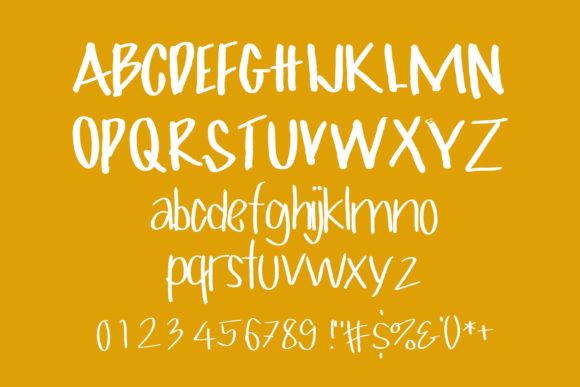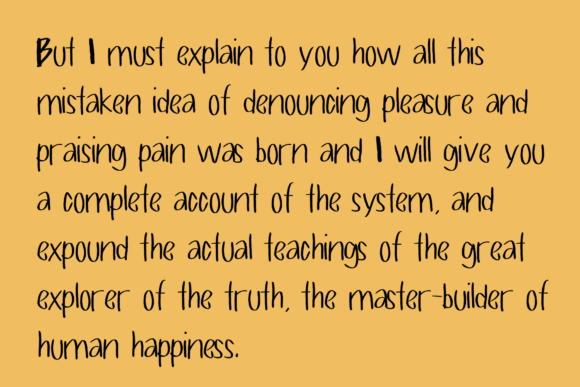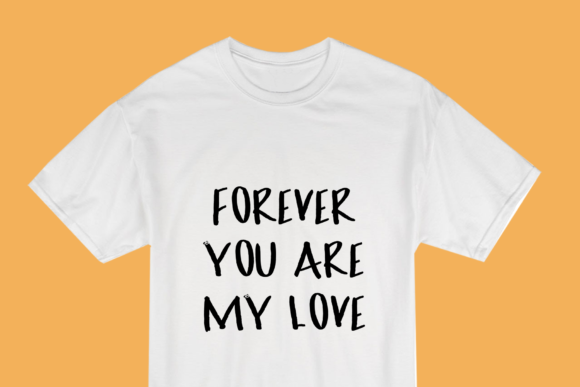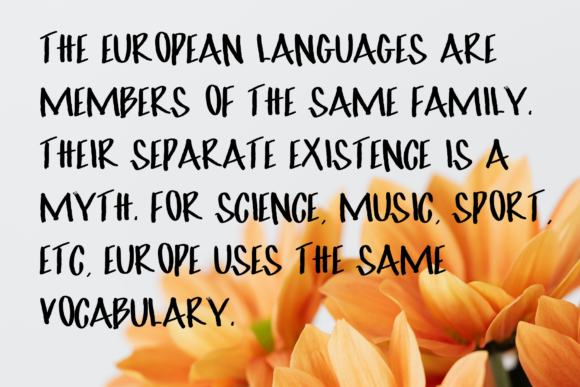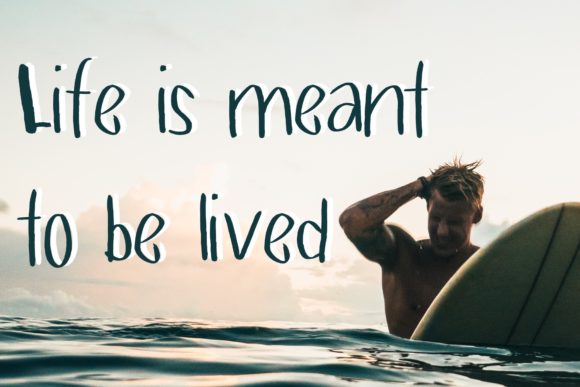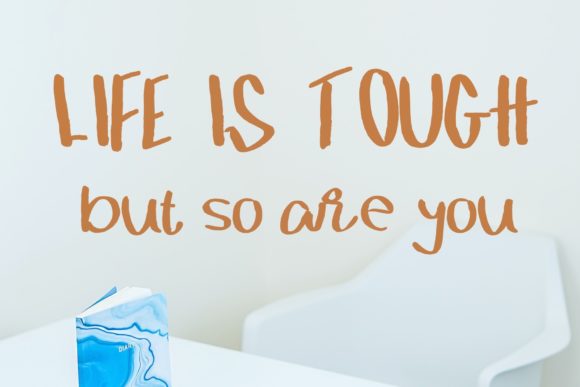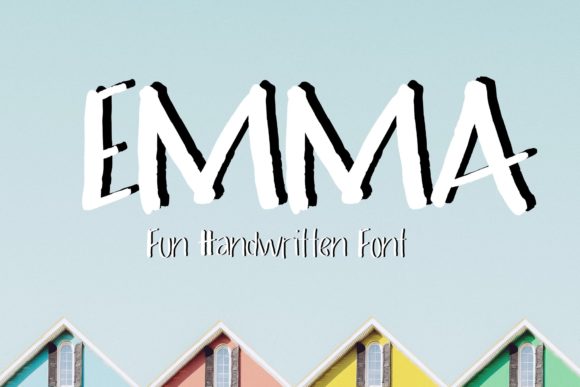
Discover the Charm of Emma Font: A Sweet and Simple Handwritten Font
Are you a designer or crafter looking for a font that exudes warmth and friendliness? Look no further than Emma font, a sweet and simple handwritten font that’s perfect for creating wonderful designs. In this article, we’ll dive into the world of Emma font, exploring its features, benefits, and uses, as well as provide tips and inspiration for getting the most out of this lovely font.
What is Emma Font?
Emma font is a beautiful, handwritten font that’s designed to evoke a sense of warmth and approachability. Its sweet and simple design makes it perfect for a wide range of projects, from digital designs to print materials, and everything in between. Whether you’re creating a logo, a poster, or a social media graphic, Emma font is sure to add a touch of personality and charm to your design.
Features of Emma Font
So, what makes Emma font so special? Here are just a few of its key features:
- Handwritten design: Emma font is a genuine handwritten font, with each letter and character carefully crafted to create a sense of warmth and personality.
- Sweet and simple: The design of Emma font is both sweet and simple, making it easy to read and use in a variety of contexts.
- Friendly look: The overall look of Emma font is friendly and approachable, making it perfect for designs that need to connect with the viewer on an emotional level.
- Versatile: Emma font is incredibly versatile, and can be used in a wide range of projects, from digital designs to print materials.
Benefits of Using Emma Font
So, why should you choose Emma font for your next design project? Here are just a few of the benefits of using this lovely font:
- Adds personality to your design: Emma font is a great way to add personality and character to your design, helping it to stand out from the crowd.
- Creates an emotional connection: The friendly and approachable design of Emma font makes it perfect for creating an emotional connection with the viewer.
- Easy to read: The simple design of Emma font makes it easy to read, even at small sizes.
- Versatile: Emma font can be used in a wide range of projects, making it a great addition to any designer’s toolkit.
Using Emma Font in Your Designs
So, how can you use Emma font in your designs? Here are a few ideas to get you started:
- Logos and branding: Emma font is a great choice for logos and branding, adding a touch of personality and warmth to your brand identity.
- Posters and flyers: The friendly and approachable design of Emma font makes it perfect for posters and flyers, helping to grab the viewer’s attention and create an emotional connection.
- Social media graphics: Emma font is a great choice for social media graphics, adding a touch of personality and charm to your social media posts.
- Digital designs: Emma font can be used in a wide range of digital designs, from website headers to email newsletters.
Tips for Getting the Most Out of Emma Font
Here are a few tips for getting the most out of Emma font:
- Experiment with different sizes: Emma font looks great at a wide range of sizes, so don’t be afraid to experiment and find the perfect size for your design.
- Pair with other fonts: Emma font pairs well with a wide range of other fonts, so try pairing it with a bold font for a contrasting look.
- Use in combination with images: Emma font looks great in combination with images, so try using it to add a touch of personality to your design.
In conclusion, Emma font is a sweet and simple handwritten font that’s perfect for designers and crafters looking to add a touch of personality and charm to their designs. With its friendly look and versatile design, Emma font is sure to inspire you to create wonderful designs that connect with your audience on an emotional level. So why not give Emma font a try today and see the difference it can make in your designs?